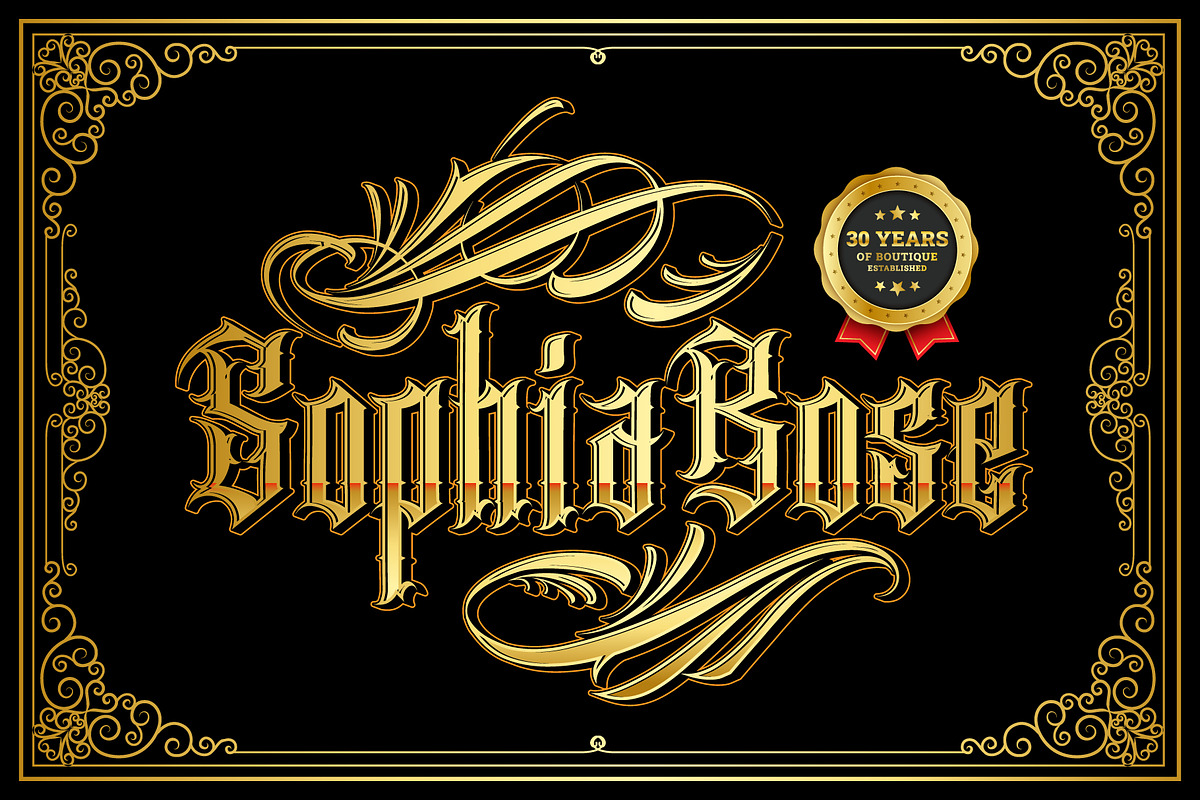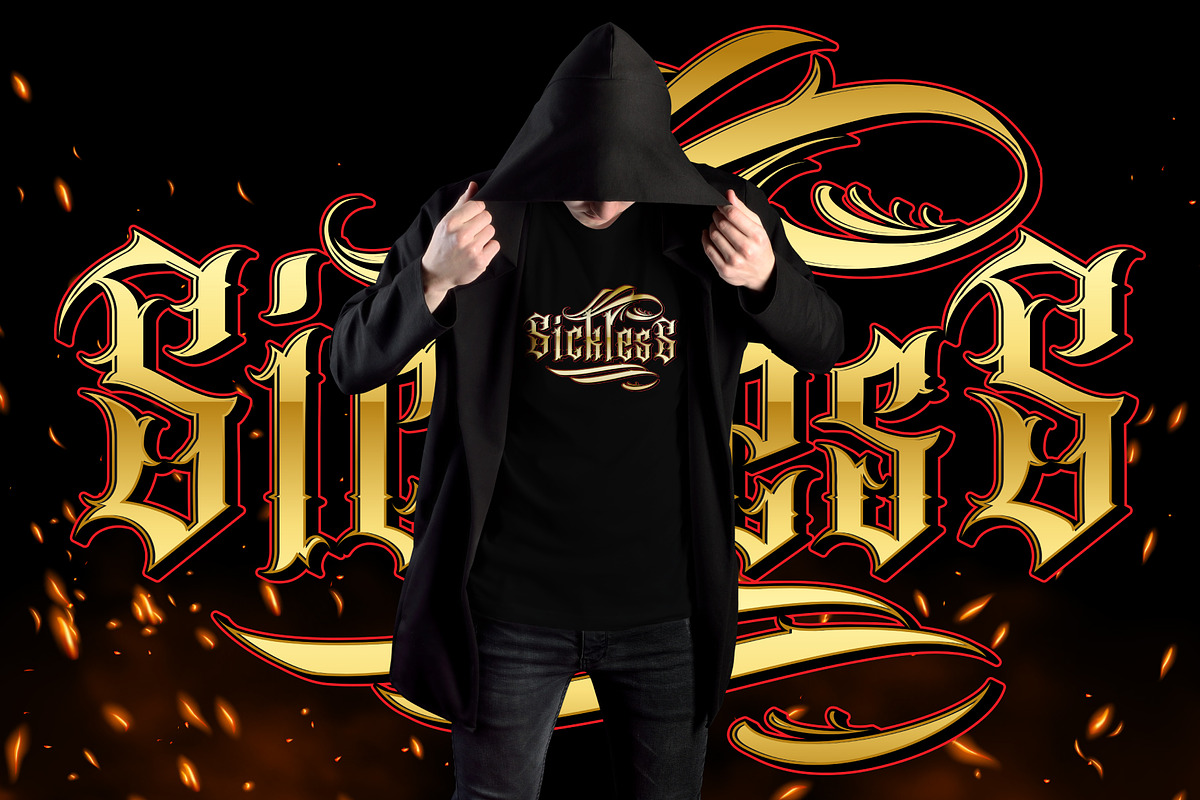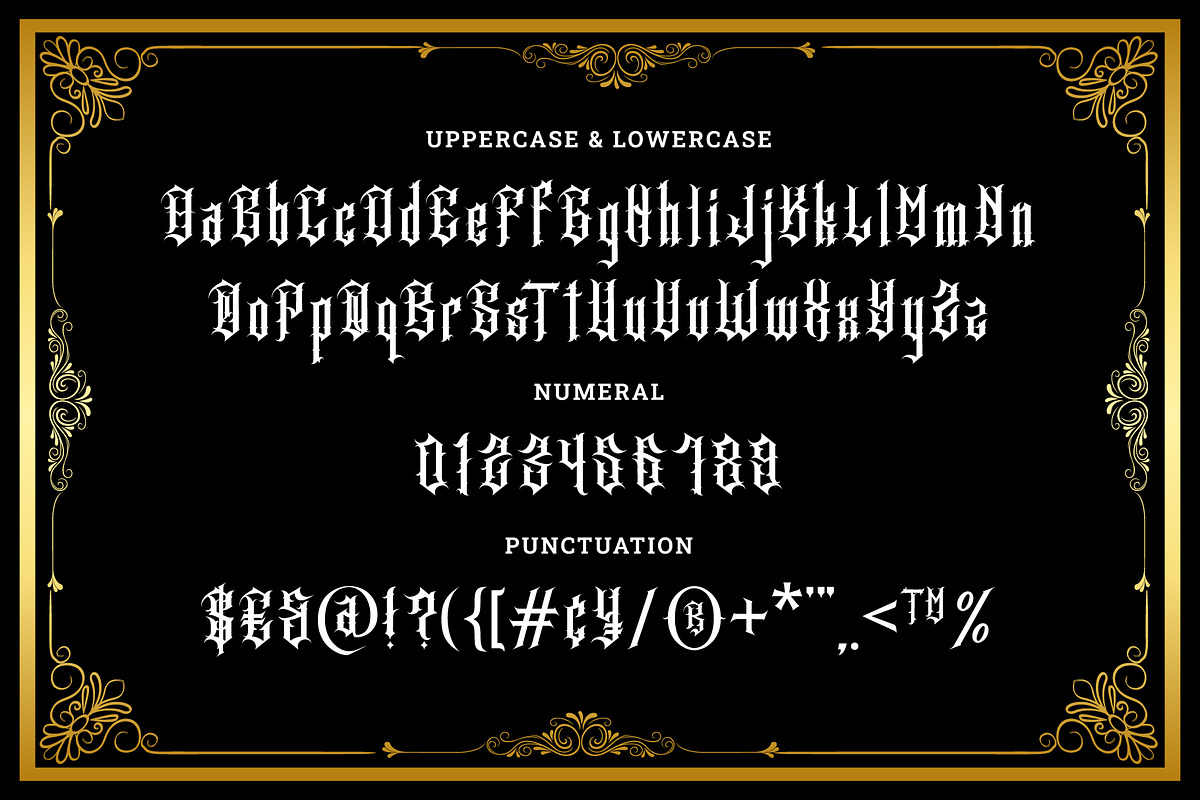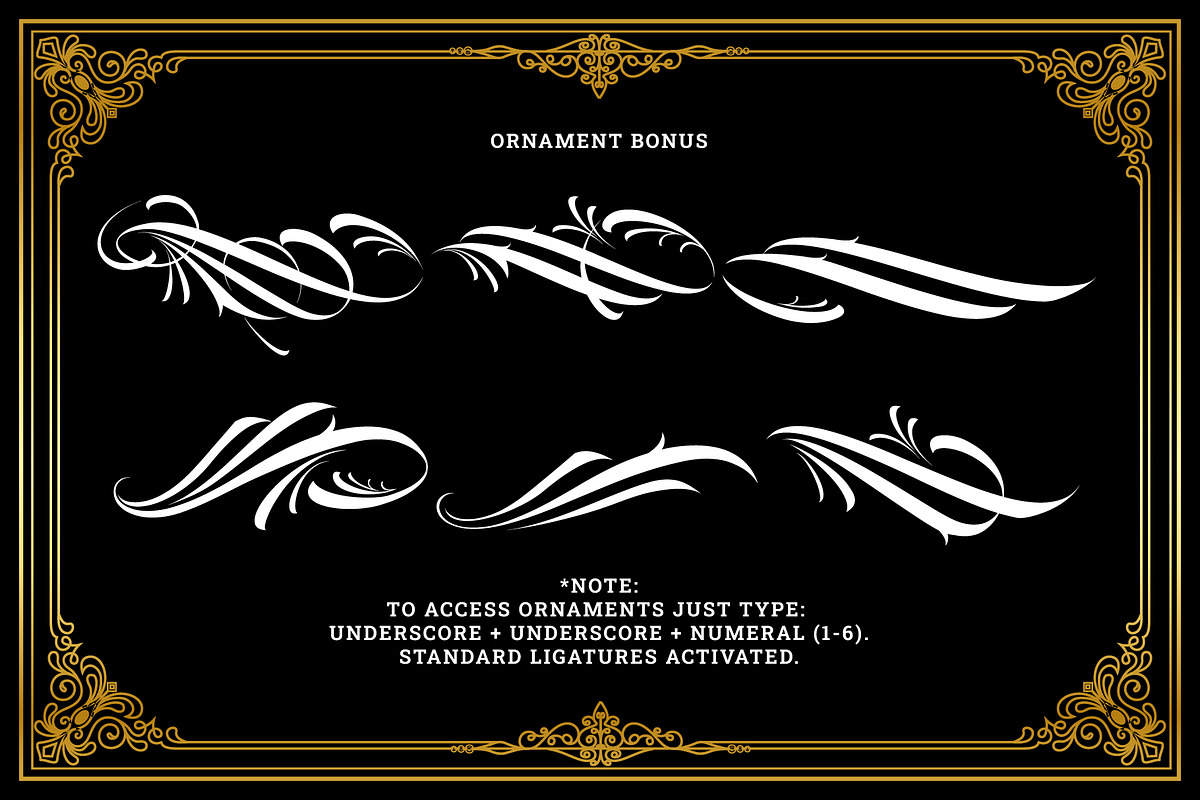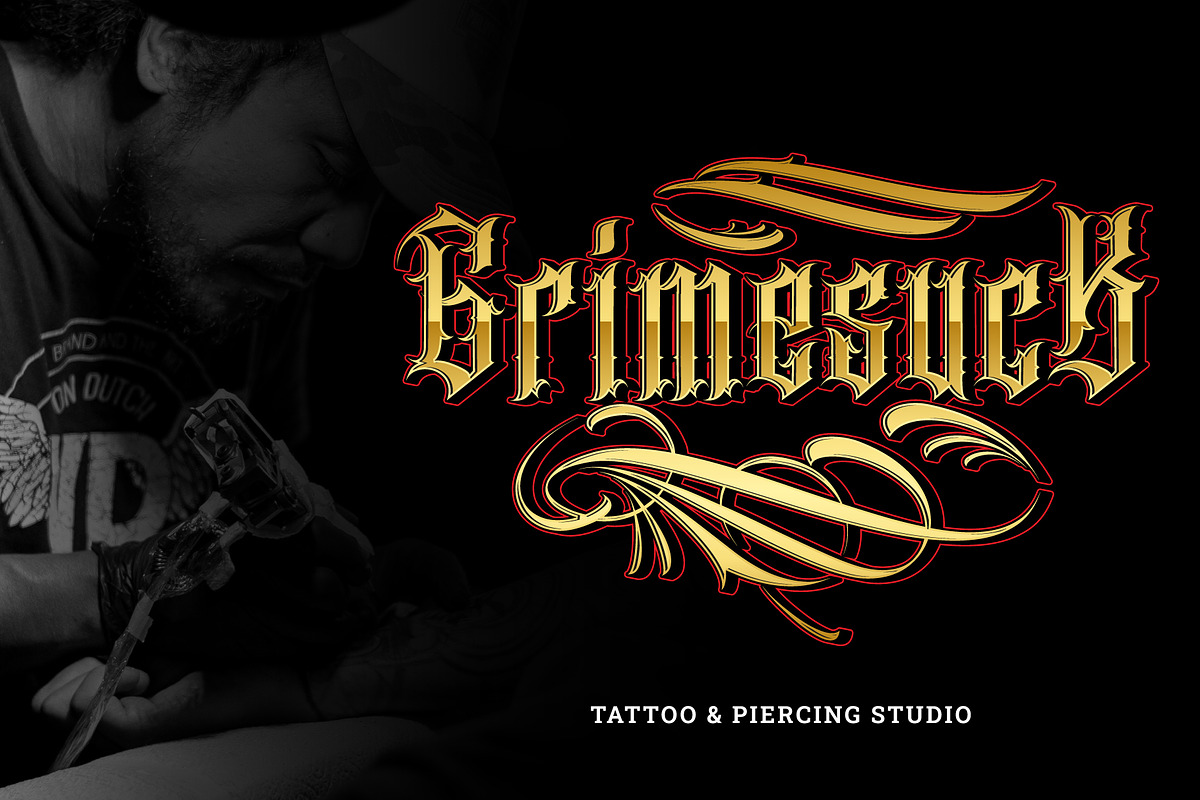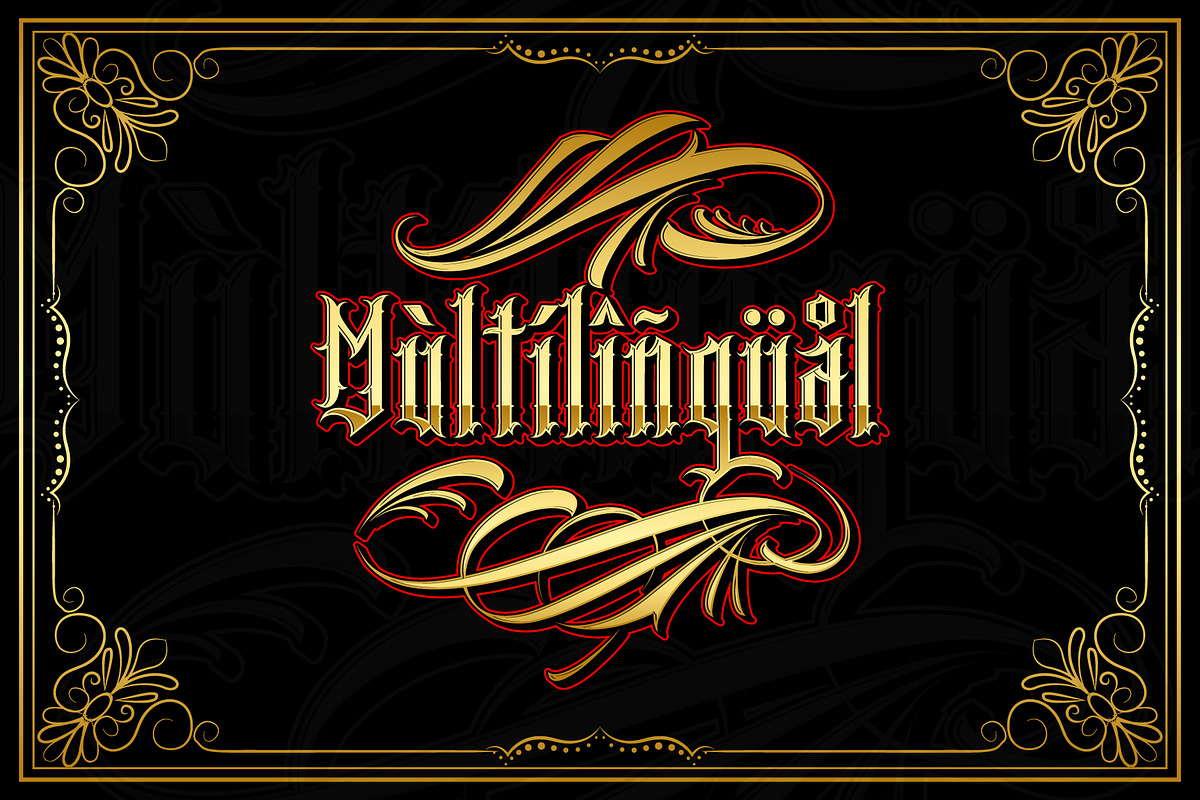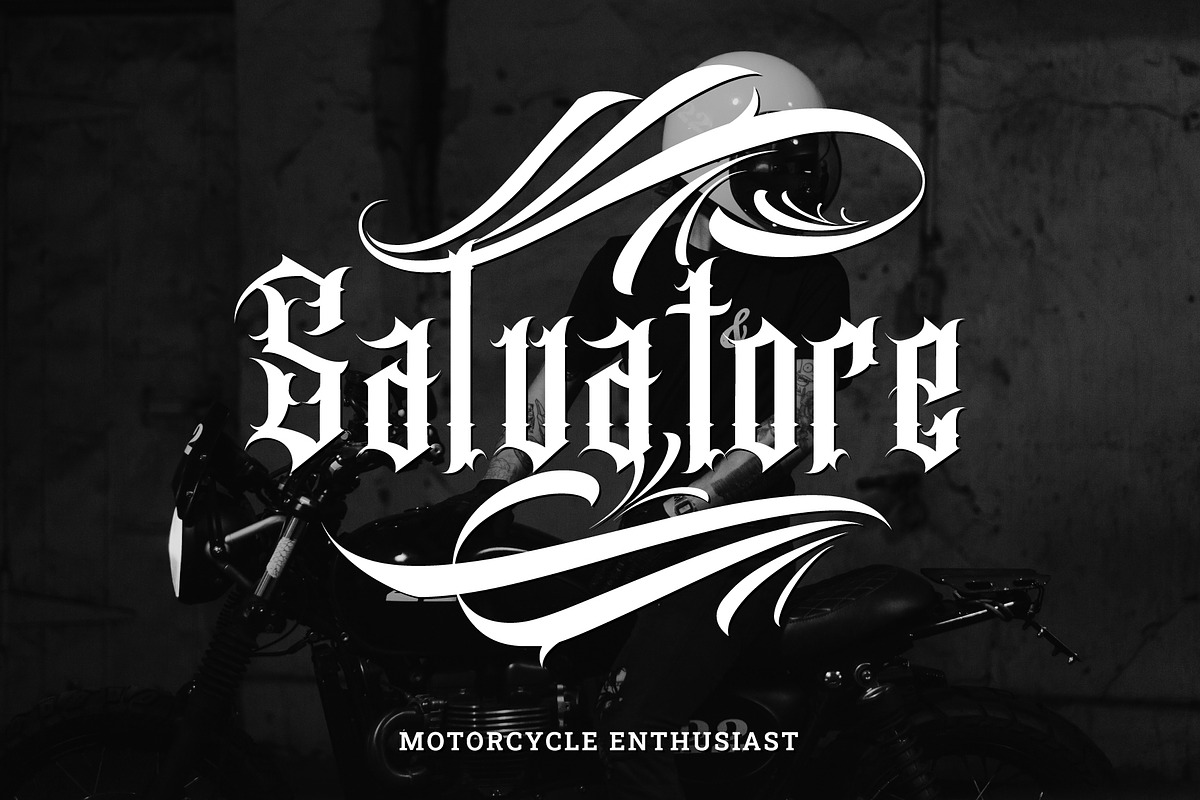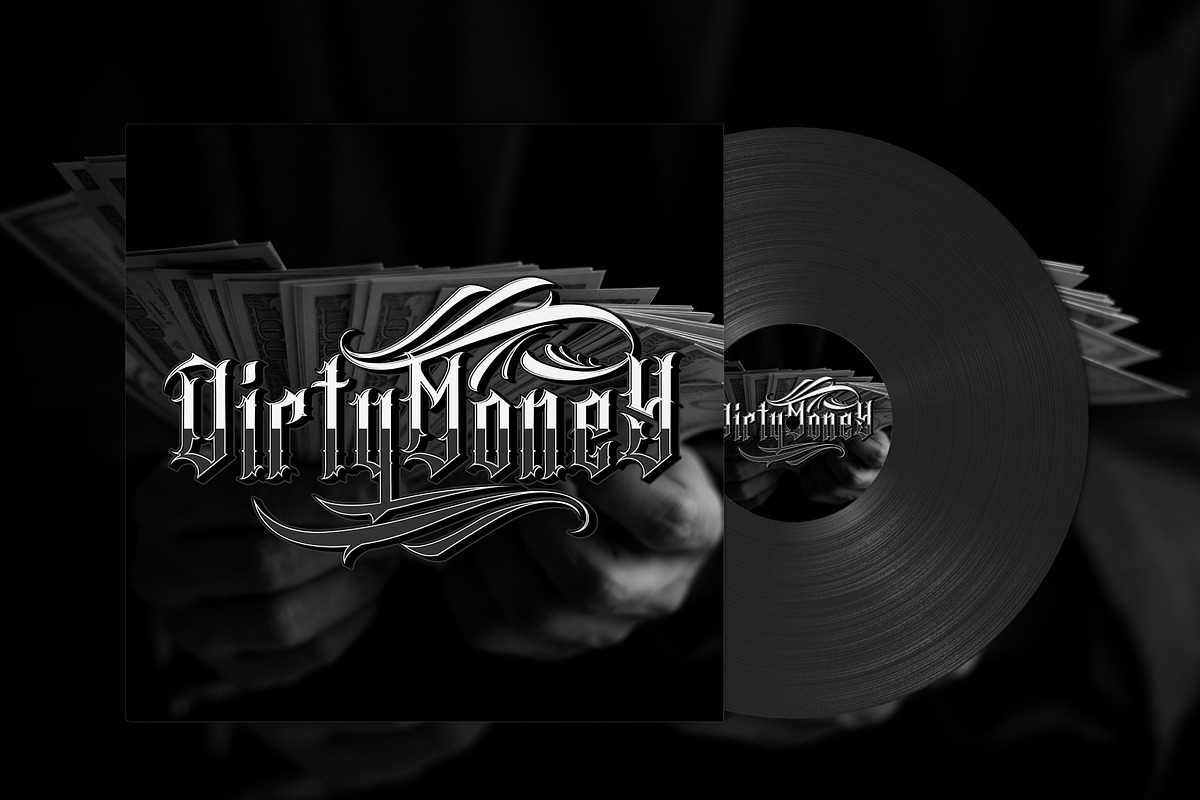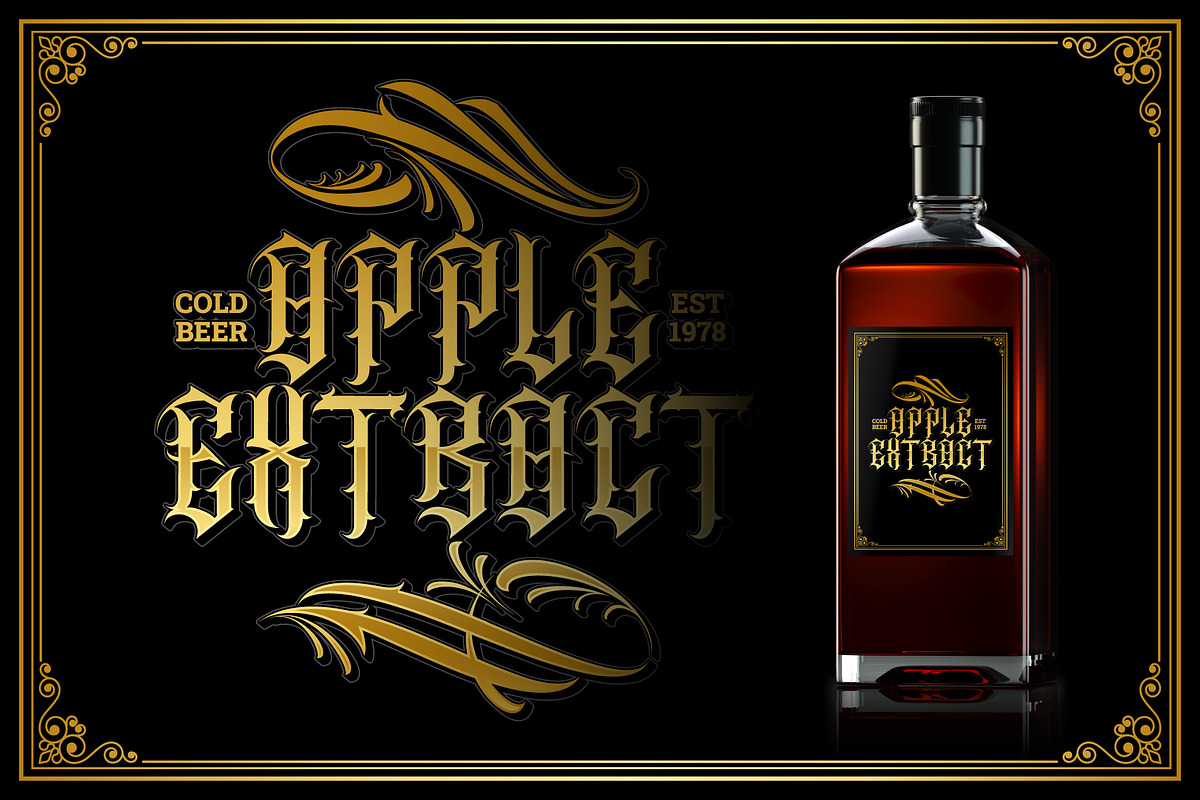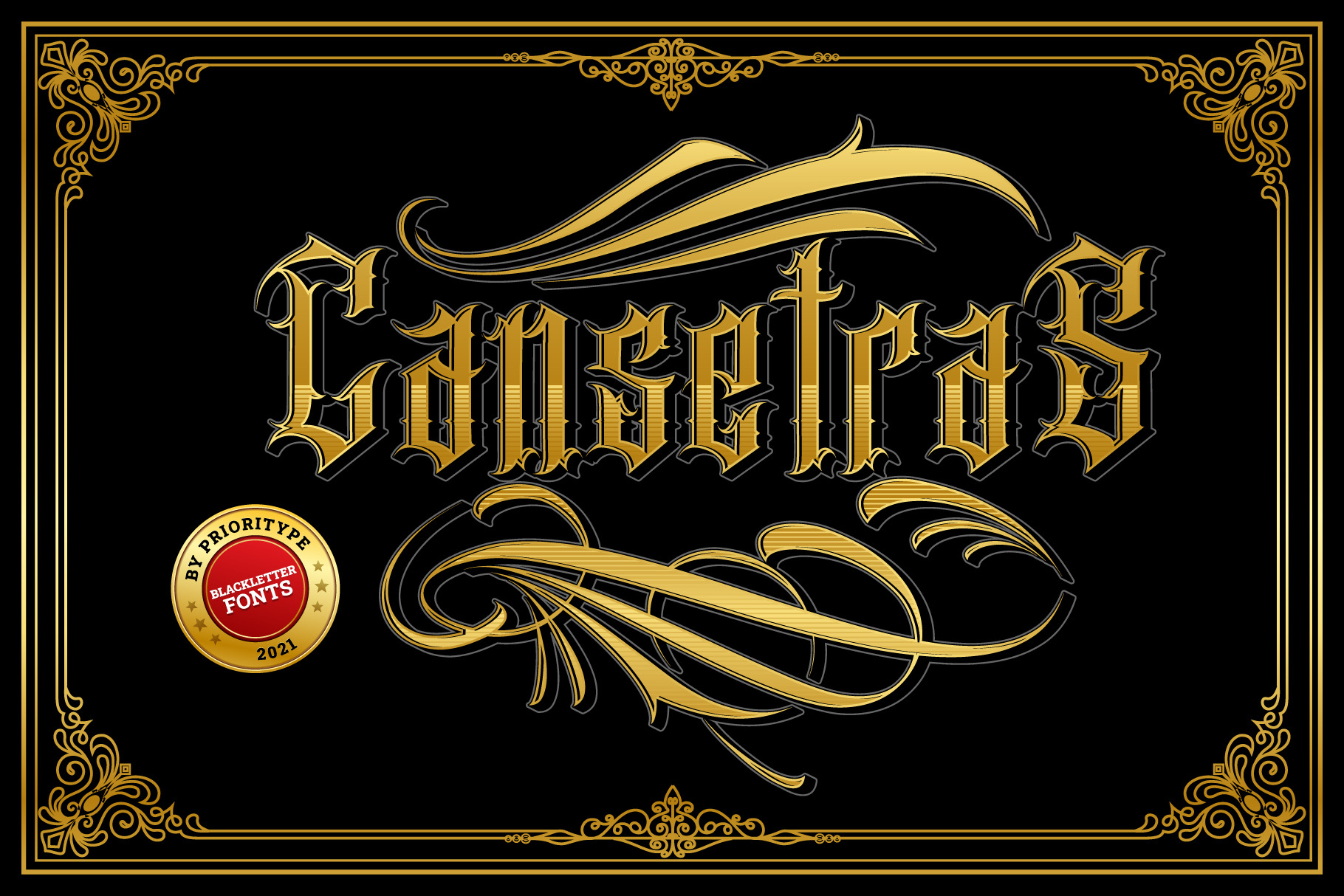
Cansetras - Blackletter Fonts
Introducing.
Cansetras - Blackletter Fonts: New breakthrough. Comes with a fierce impression of each character to create a very cool design. Plus the ornaments are really amazing. Great for designing posters, clothing, covers, logos and more.
- Features: Uppercase, Lowercase, Numeral, Punctuation, Multilingual & Ornament.